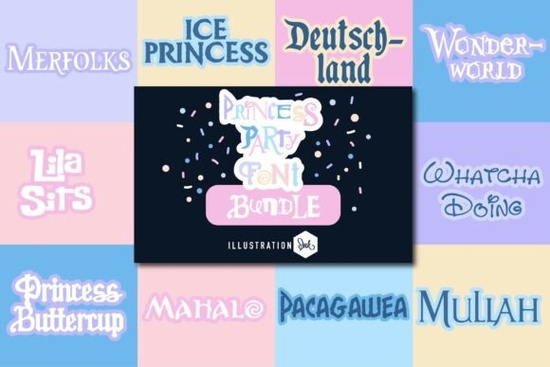
If you're designing invitations for a birthday party, crafting social media graphics for a kids' boutique, or putting together printable activity sheets for a classroom theme, the Princess Party Font bundle is a thoughtful, practical choice not because it’s flashy, but because it solves real design problems with consistency and charm. It includes 10 distinct font families, each designed with care to evoke different kinds of magic: think storybook elegance, underwater sparkle, or vintage fairy-tale warmth. All fonts come in both .otf and .ttf formats, so they work smoothly across design tools like Canva, Adobe Illustrator, Cricut Design Space, and Silhouette Studio.
What’s actually inside the bundle?
The collection balances variety with cohesion no jarring mismatches when mixing fonts on one layout. Here’s what you’ll find:
- Ice Princess: A delicate, slightly frosty script with fine hairlines and graceful terminals ideal for winter-themed party invites or “Frozen”-inspired printables.
- Merfolks: Playful and bubbly, with swashy ascenders and gentle curves that suggest ocean waves and seashell motifs.
- Princess Buttercup: A friendly, rounded serif with soft contrast great for labels, tags, or beginner-friendly classroom posters.
- Starlight Script: A flowing, connected hand-lettered style that feels personal and warm, like a note from a royal friend.
- Crown & Quill: A refined, slightly formal calligraphic face perfect for certificates, award ribbons, or boutique packaging.
- Plus five more carefully named and styled families including Royal Rose, Fairy Fable, Enchanted Loops, Glimmer Gold, and Twilight Tiara.
Who uses this and where does it fit naturally?
You don’t need to be designing for a castle to get value from these fonts. Small business owners running children’s clothing shops often use Princess Buttercup for hang tags and Starlight Script for Instagram story highlights. Teachers building themed literacy centers reach for Fairy Fable on reading logs or alphabet charts it’s legible at smaller sizes and still feels special. Print-on-demand sellers pair Crown & Quill with floral clipart for greeting cards aimed at moms who love gentle, storybook aesthetics. Even if your niche is more car-themed stationery, having one whimsical option on hand helps round out your font library for seasonal promotions.
It’s also a smart companion to other curated collections like those focused on handwritten authenticity or clear, kid-friendly letterforms. Unlike some overly ornate princess fonts, these were tested for readability in real-world applications: printed at 12 pt on party favor bags, scaled down for digital stickers, or layered over textured backgrounds without losing shape.
How to use it without overdoing it
Whimsy works best when it’s intentional not everywhere at once. Try this approach:
- Pick one headline font (e.g., Ice Princess for a title) and one supporting font (e.g., Princess Buttercup for body text).
- Avoid stacking more than two script fonts on one layout especially if they’re both highly decorative.
- Use OpenType features like ligatures or alternate characters sparingly just enough to add polish, not confusion.
- Test how fonts render on mobile before finalizing social posts. Some delicate scripts lose clarity on small screens.
For beauty brands leaning into “royalty-core” visuals, Glimmer Gold adds subtle shimmer to product labels without needing extra graphic effects. And if you're building a cohesive brand kit for a new Etsy shop, pairing Twilight Tiara with a clean sans-serif (like Montserrat or Poppins) gives you flexibility across packaging, web banners, and email headers.